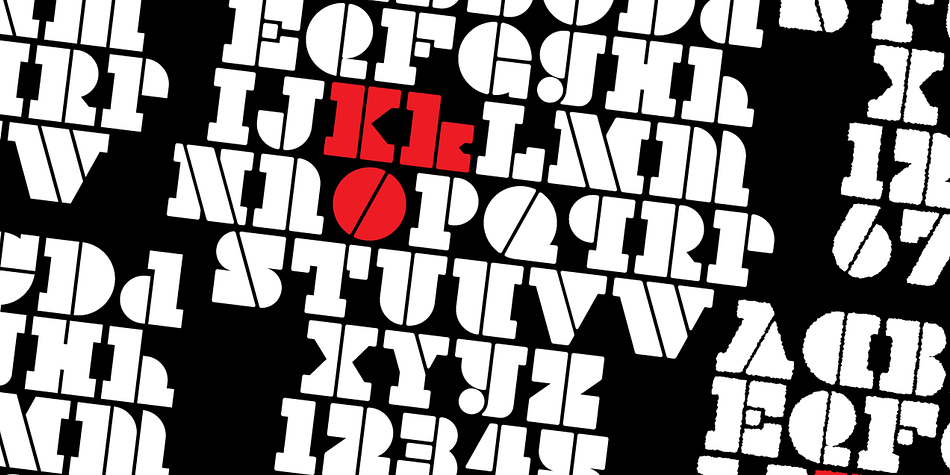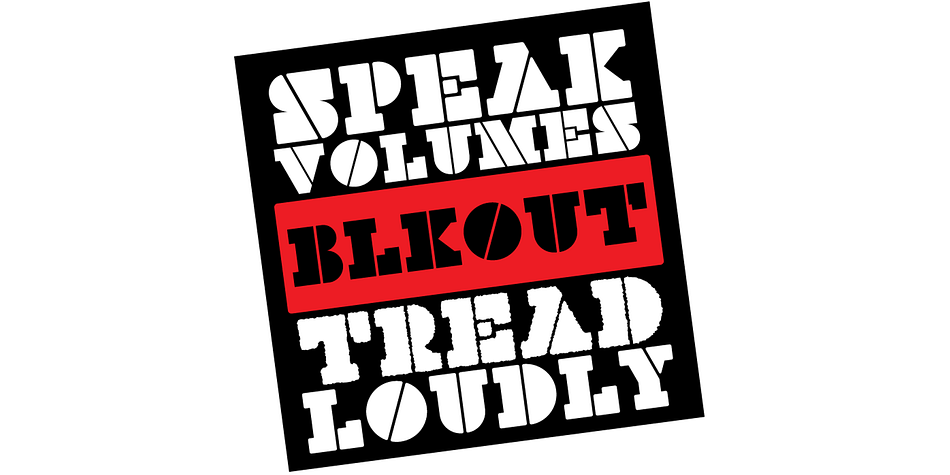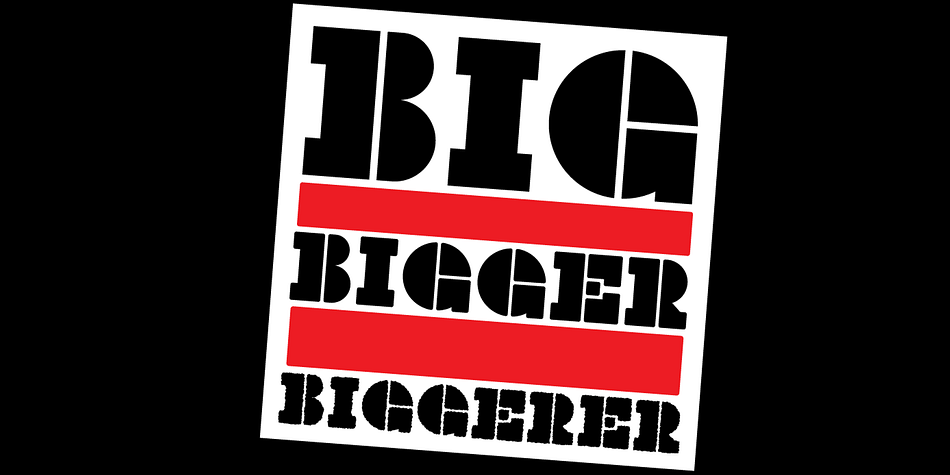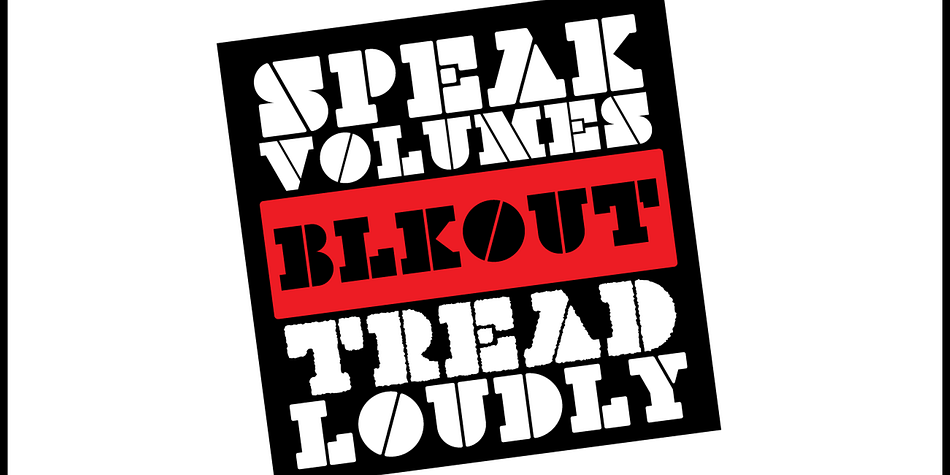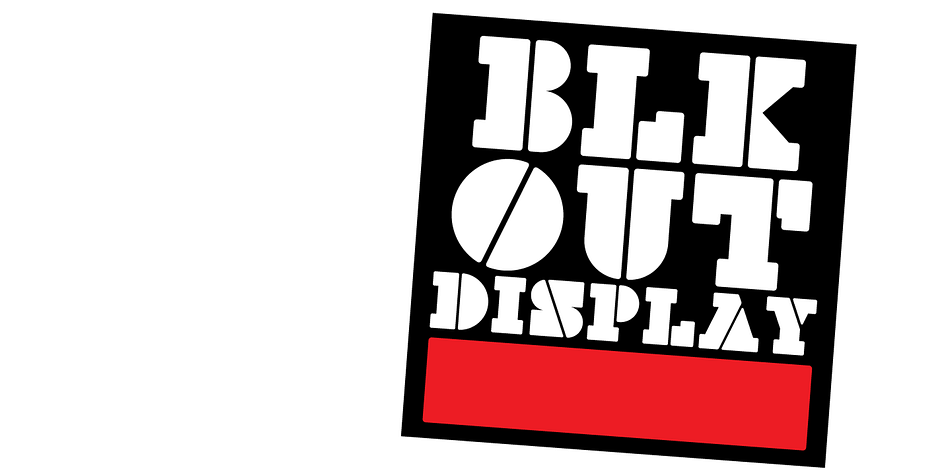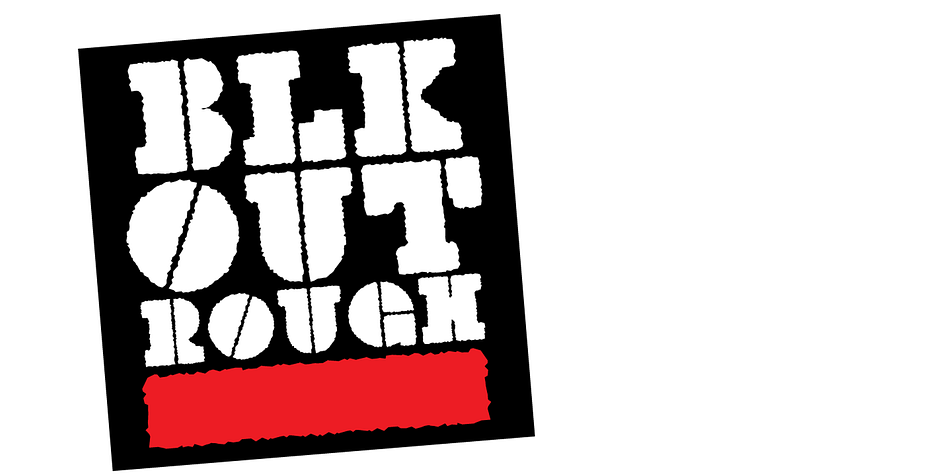
BlkOut
Designed by Ian Lynam and Eli Carrico, BlkOut is a stencil font family. This typeface has three styles and was published by Wordshape.
BlkOut is a booming 3-cut display type family combining Regular, Display and Rough variations! BIt is an update and extension of our BlackOut Stencil display type family designed by Eli Carrico and extended by Ian Lynam. The Regular version is a geometric display face, the Display version features rounded corner radii, and BlkOut Rough is a ruff ‘n’ ready distressed version for when you need the utmost in grit and impact!
BlkOut is a result of three things: the need for a distinctive ultra-black display typeface, an admiration for slab-serifs and Clarendons, and the love of systematic stencil type. Fusing all the desires together resulted in BlkOut!